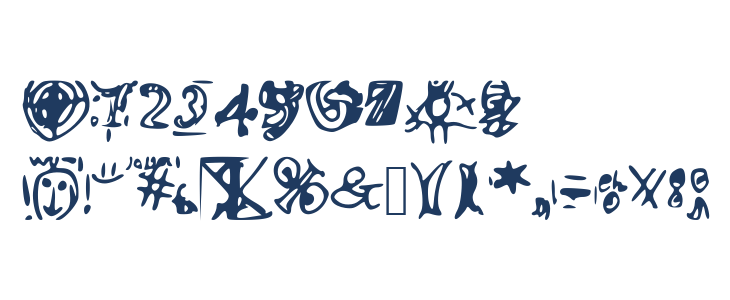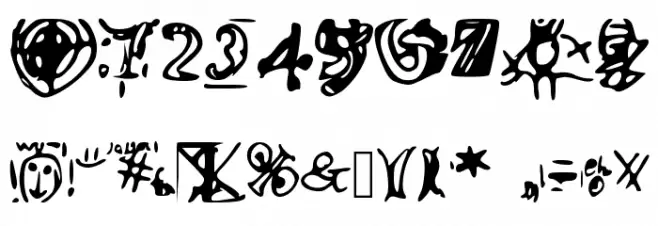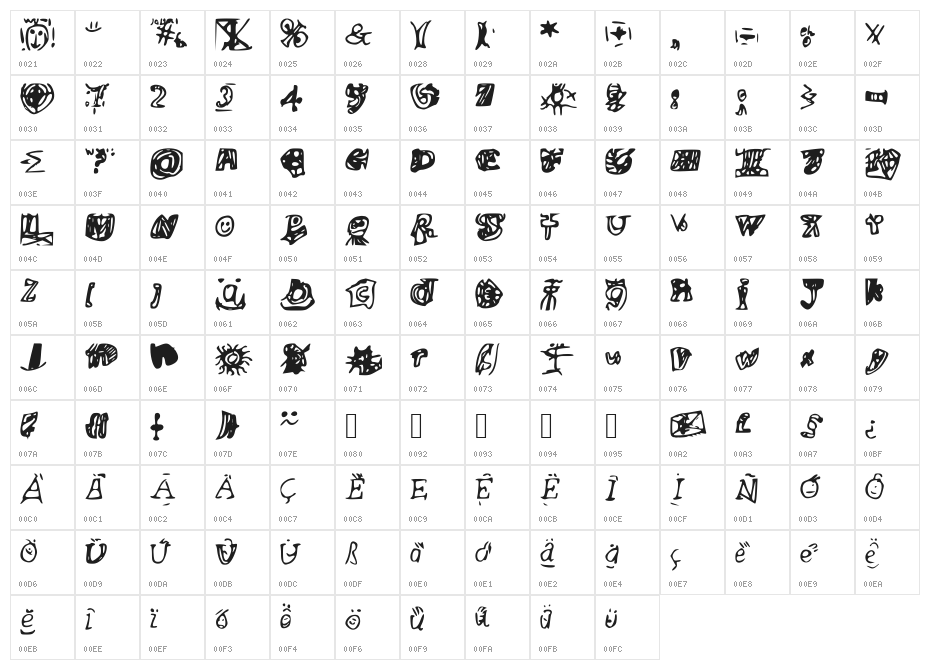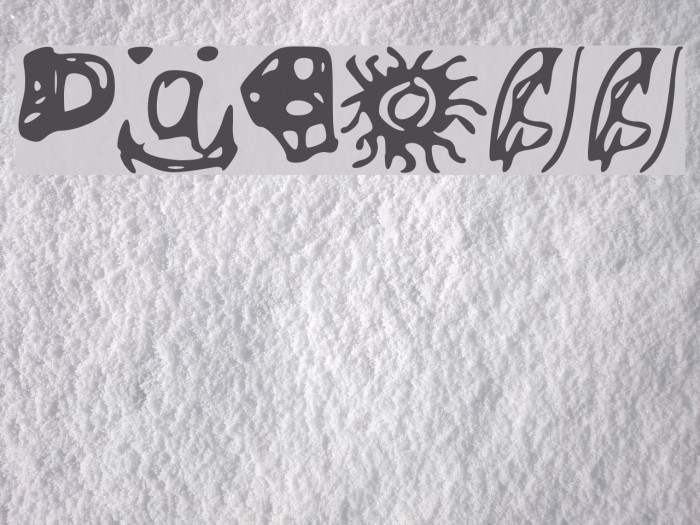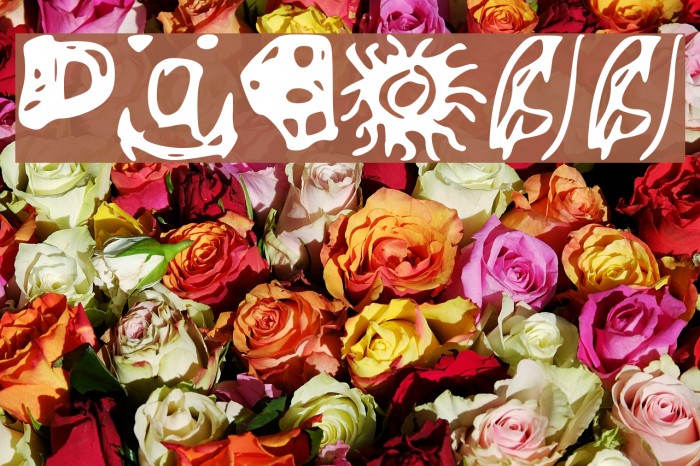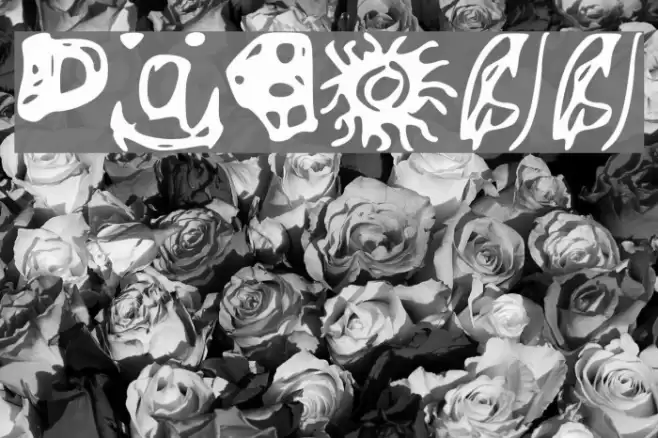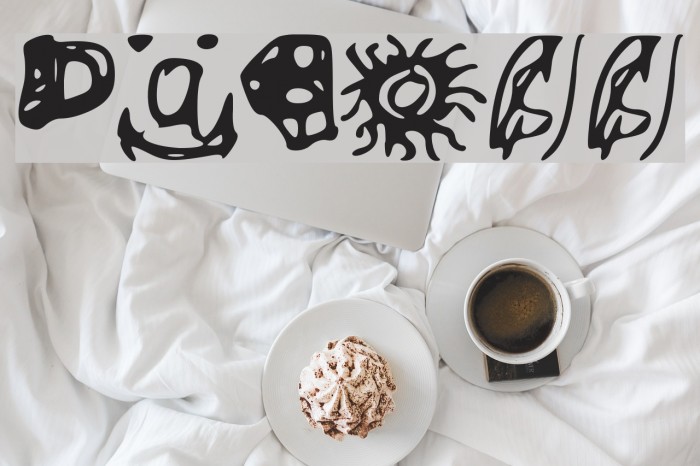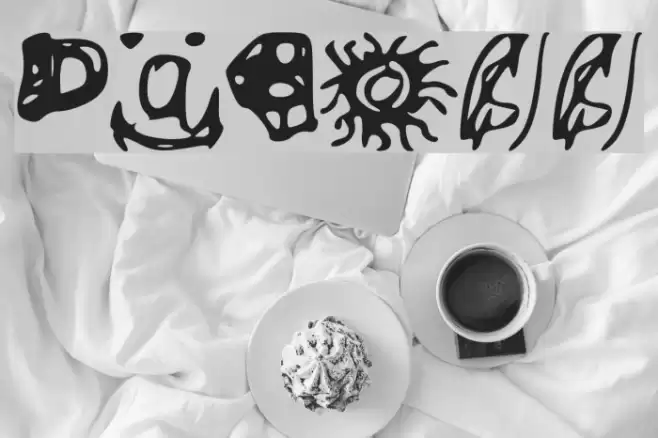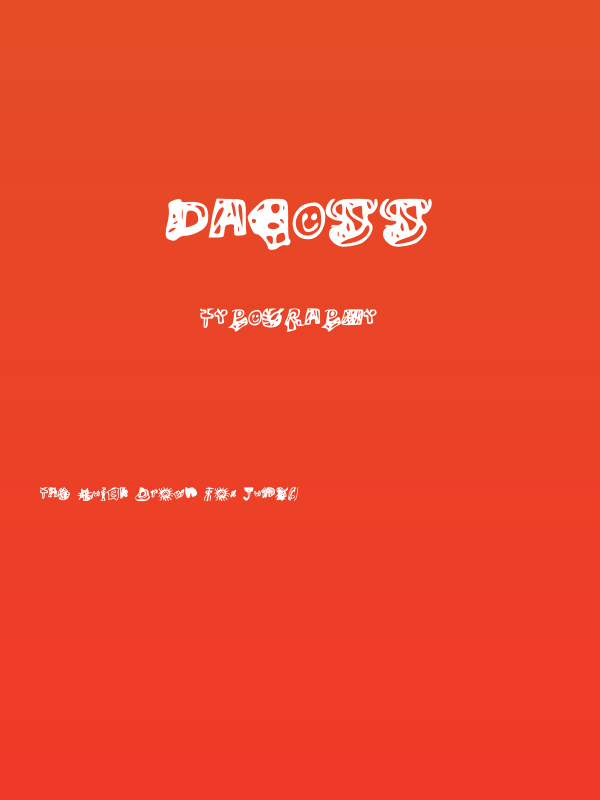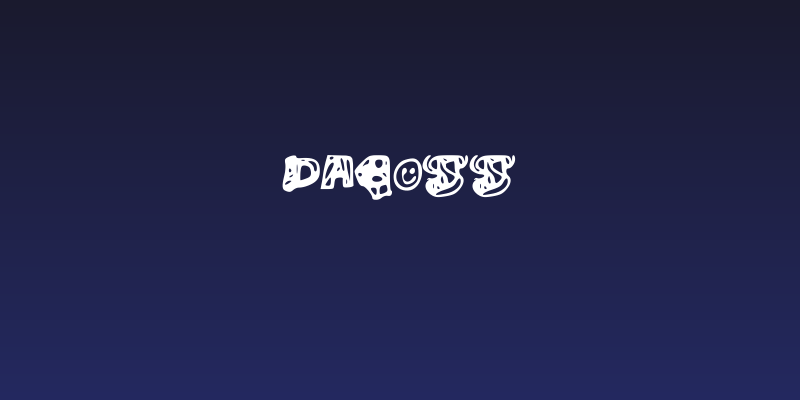
DaBoss Font
DaBoss Description
This font is a highly decorative and abstract typeface, characterized by its intricate and whimsical design. Each character is uniquely crafted with a playful and artistic flair, incorporating various shapes and patterns that give it a dynamic and energetic appearance. The font features a mix of bold and thin strokes, creating a high contrast that enhances its visual impact. The characters are irregular and asymmetrical, adding to the font's quirky and unconventional style. This typeface is perfect for projects that require a bold statement or a creative touch, such as posters, album covers, or artistic branding. Its distinct and eye-catching design makes it unsuitable for body text but ideal for headlines or logos where a strong visual identity is needed.